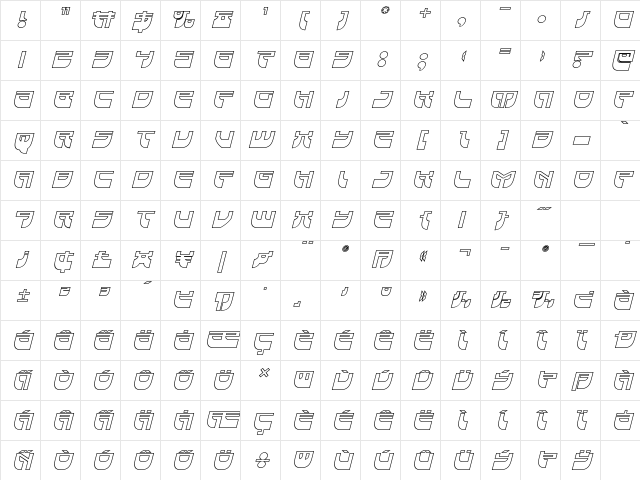
Complete Vertical Horizon Outline Itali Outline Italic glyph index. Displaying only characters natively supported by Vertical Horizon Outline Itali Outline Italic font.
Vertical Horizon Outline Itali is built around its visual character rather than neutral utility - its distinctive forms are designed to make an impression at display sizes. The slanted form adds forward momentum and visual energy.